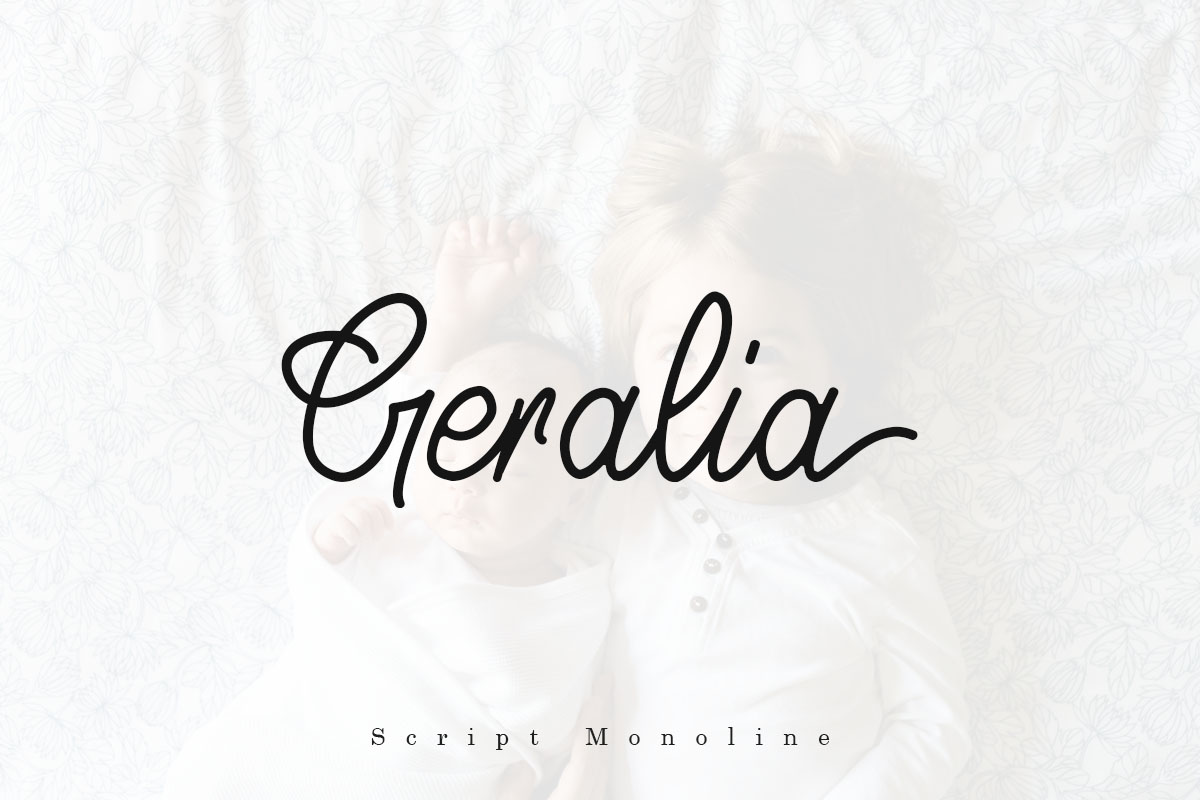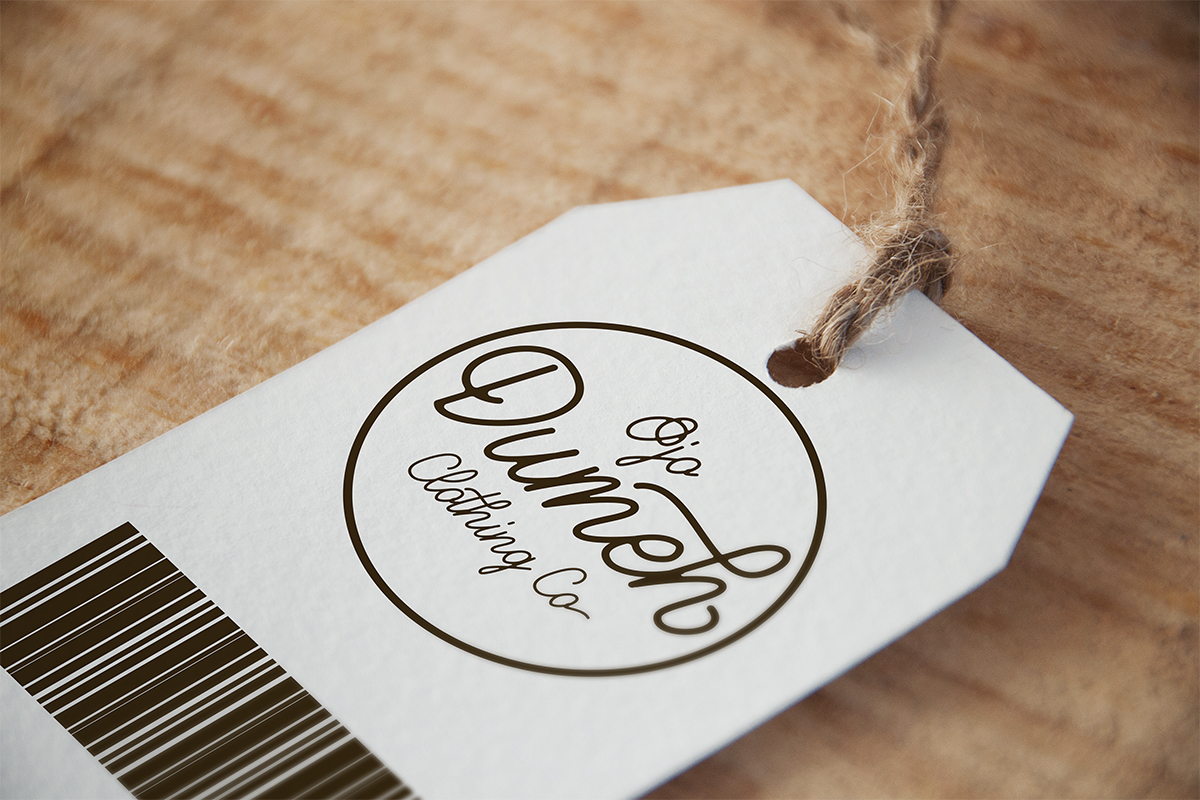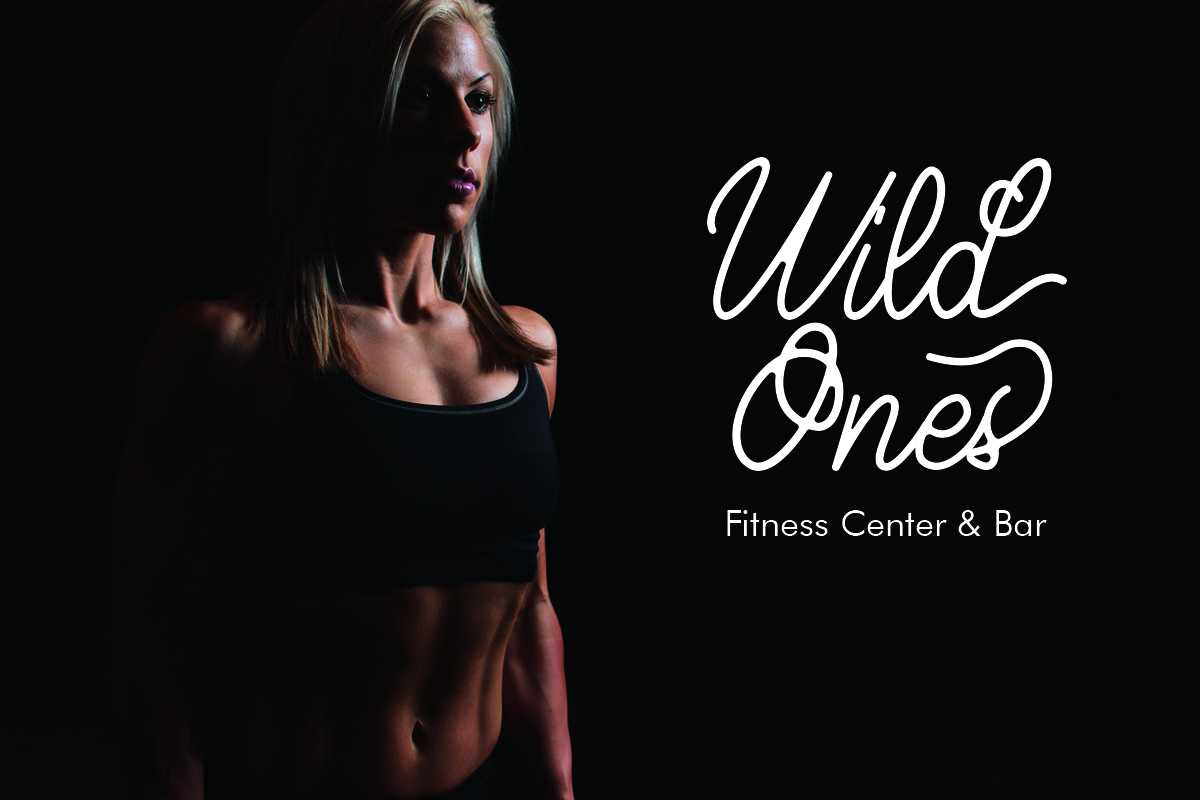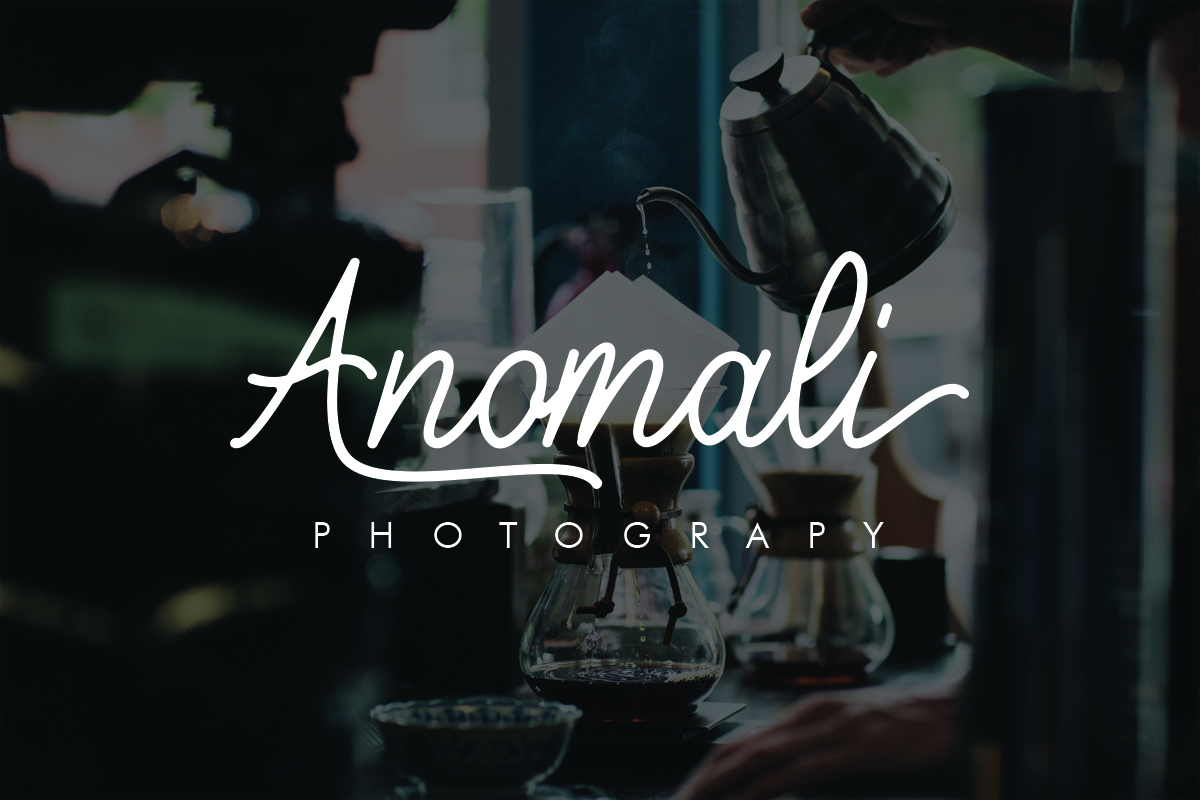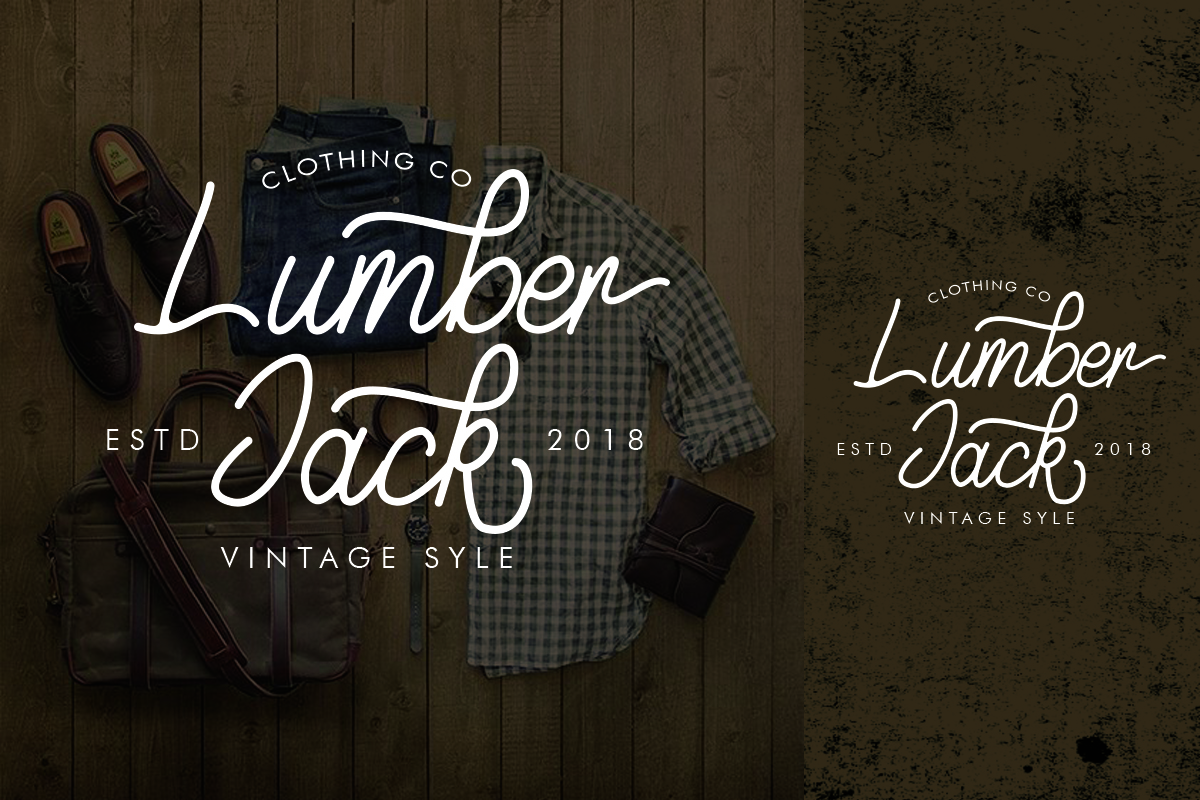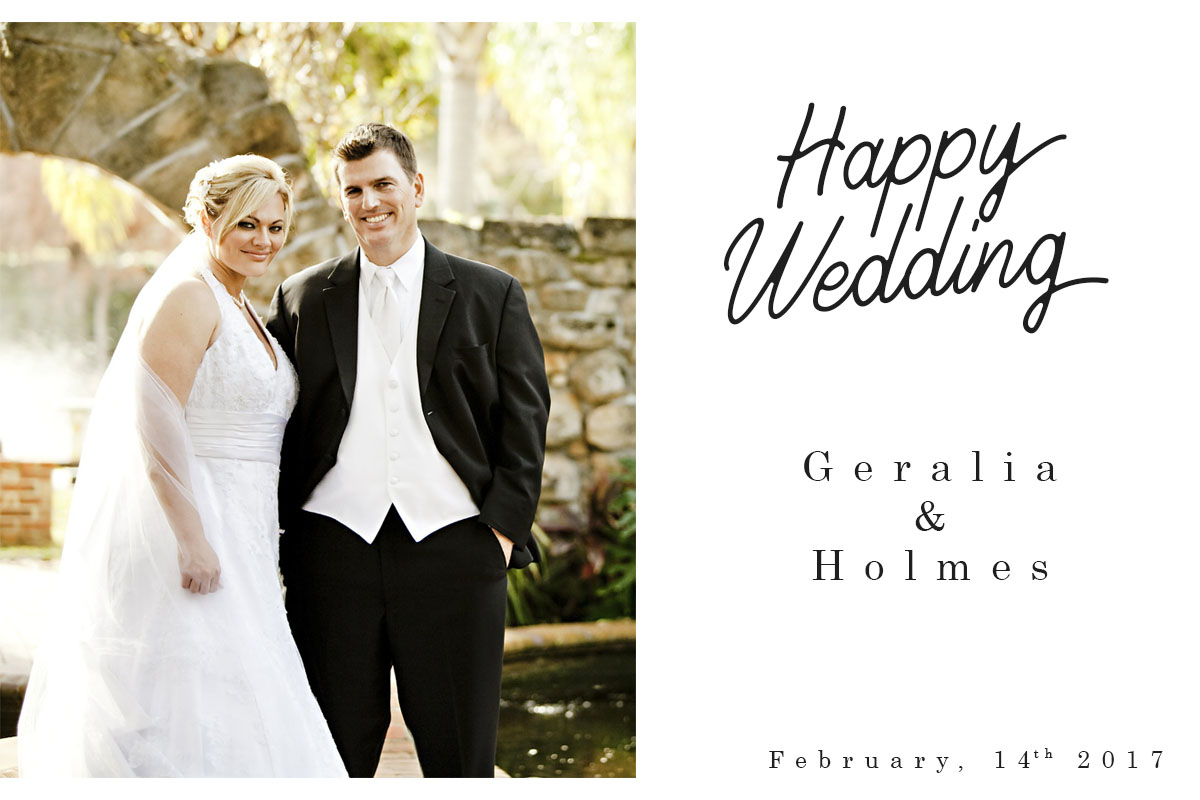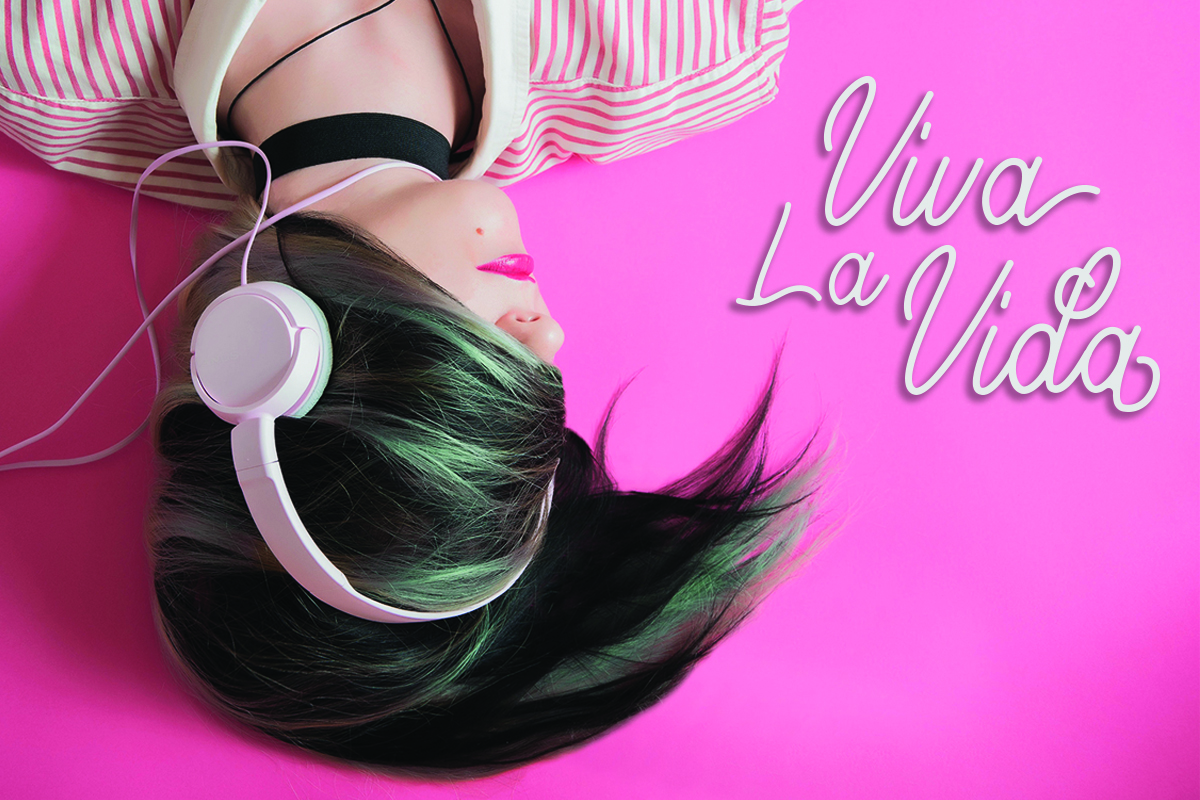
Geralia Font
Geralia is a beautiful and simple monoline script; elegant and clean, this is a great cursive styled font for a large range of designs. This font looks at home in rustic, hipster designs or in elegant and romantic project types.